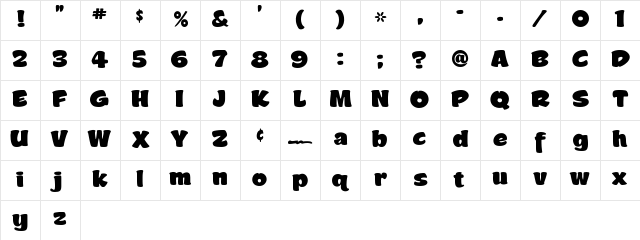
Complete A&S Puff Daddy Bold glyph index. Displaying only characters natively supported by A&S Puff Daddy Bold font.
A&S Puff Daddy is a composed and adaptable typeface that performs quietly and consistently across a wide range of design contexts. Its bold stroke weight gives it real presence on the page.